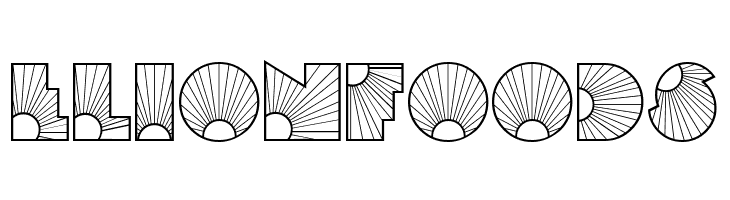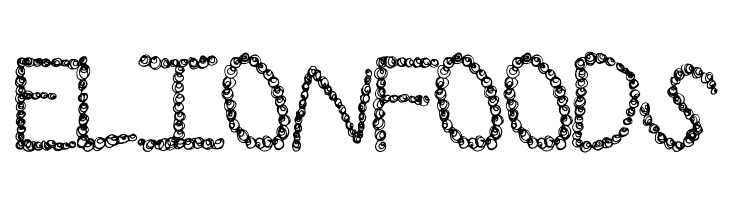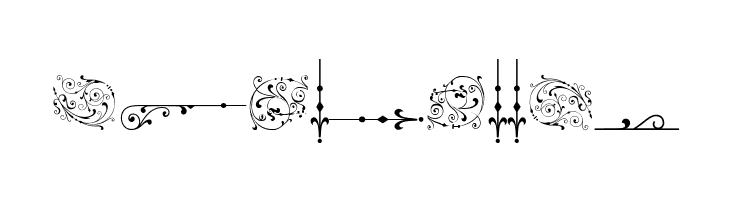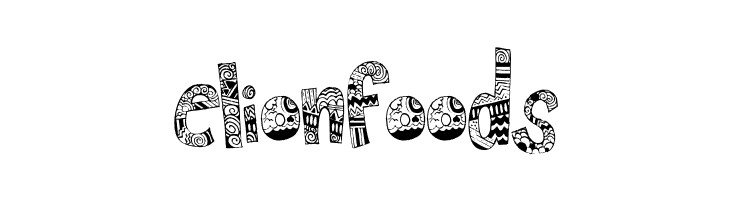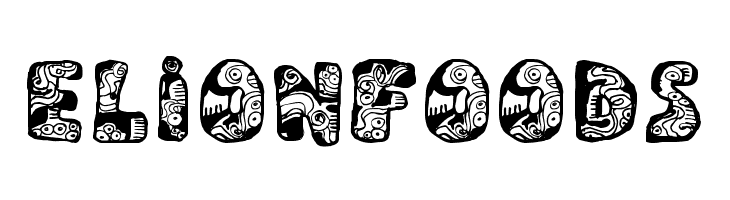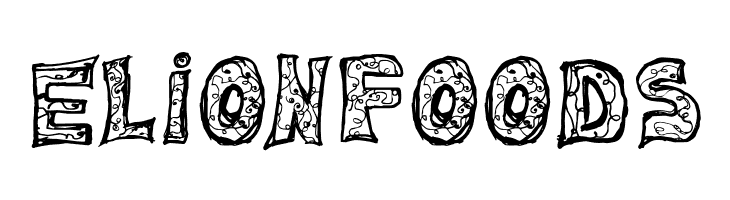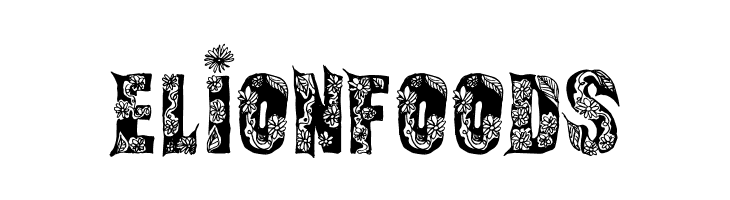
A whimsical and decorative font with intricate curly patterns.
An intricate, geometric font with tribal-inspired patterns.
A collection of decorative ornaments with intricate, swirling patterns.
A playful and decorative font with intricate patterns and bold designs.
A decorative and artistic font with intricate patterns and whimsical designs.
A bold, decorative font with intricate, hand-drawn patterns and a playful style.
A whimsical, decorative font with intricate floral patterns.
A playful, balloon-like font with tiger stripe patterns.